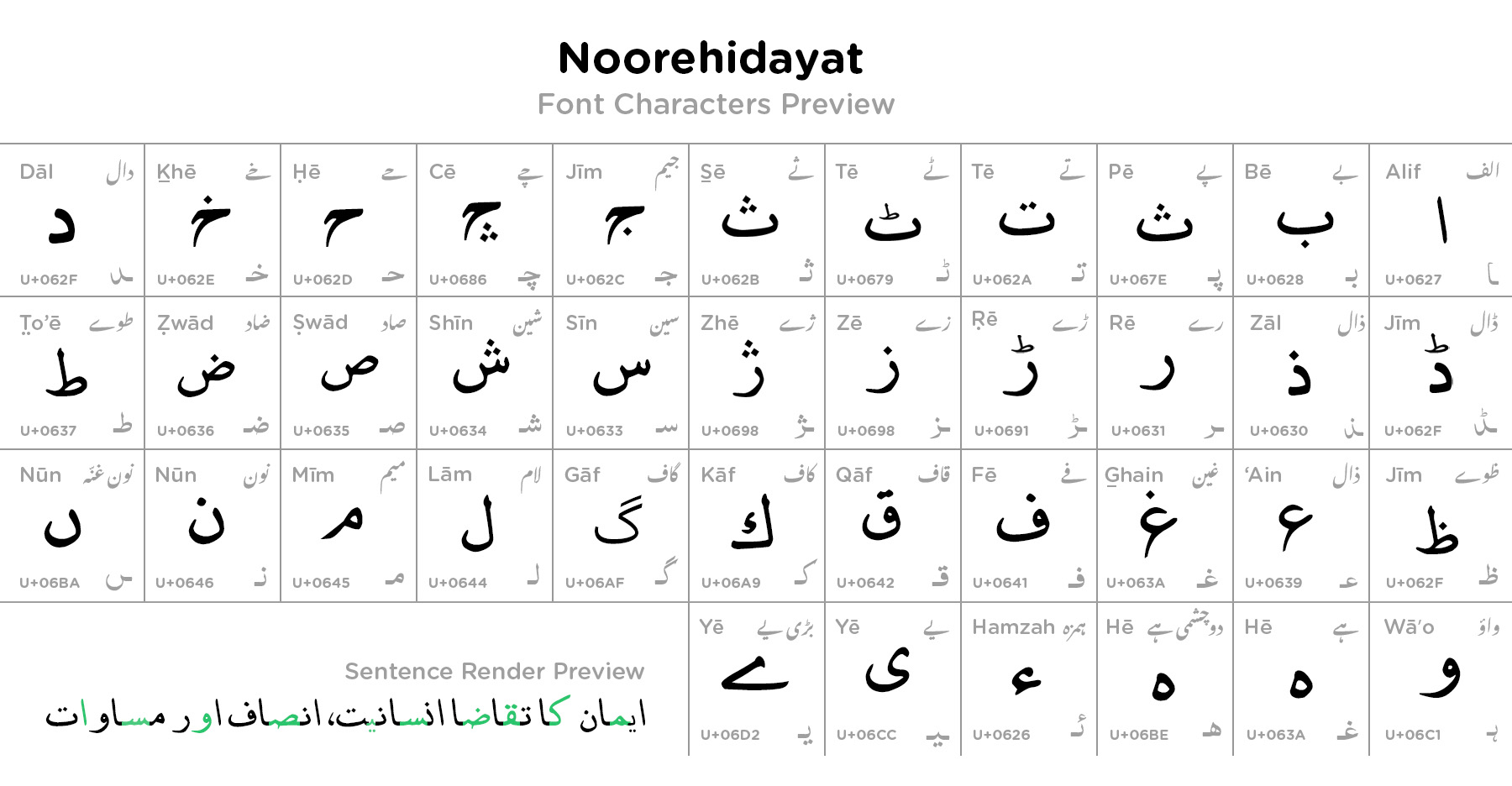
Noorehidayat
Naskh -
Noorehidayat is a modern Arabic font designed to evoke the natural feel of Qalam Writing. Released on November 14, 2019, this font offers compatibility with Urdu, Arabic, Latin, Persian, and more languages. Designed with a rounded, handwritten style and thick letterforms, the font draws inspiration from traditional calligraphy with modern influences. The font features generous spacing between letters, contributing to its high legibility even at smaller sizes.
With 267 characters and 578 glyphs, Noorehidayat is suitable for various applications, including branding, advertising, logos, book covers, posters, and newspaper headlines. However, due to its thick and untidy appearance, it may be best suited for short text rather than prolonged reading. The font’s thick and dynamic strokes, along with impactful and changing strokes, create a visually engaging look. Vertical characters are slightly tilted, and decorative pointy edges give the font a distinctive character. Despite the informal appearance of its wide spaces, this typeface maintains a high level of legibility. Whether used for headlines or short captions, this font adds a touch of elegance to any design.